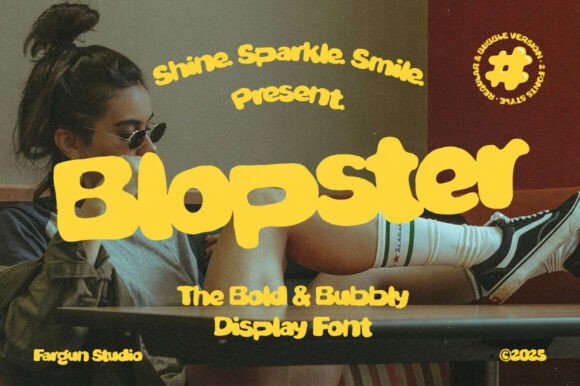
Introducing Blopster: The Ultimate Playful Display Font
Hey there, fellow creatives! Have you ever been in the middle of a design project, and suddenly, you’re stuck on finding the perfect font? I know I have! It was just the other day when I was working on a fun kids’ branding project, and I needed a font that was bold, bouncy, and full of personality. That’s when I stumbled upon Blopster, and let me tell you, it’s been a game-changer!
The Blopster Advantage
Blopster is a playful display font that comes in two bold, expressive styles: the regular chunky version and a dripping Bubble variant. This font is perfect for designers, crafters, and creative hobbyists who want to add a touch of fun and wow to their designs. With Blopster, you get:
- Two styles to choose from: a clean, quirky boldness and a gooey, glossy drip effect
- Bold, bouncy, and packed with personality – perfect for logos, packaging, kids’ projects, and eye-popping visuals
- Instant attention-grabbing with its thick curves and joyful energy!
Why You’ll Love Blopster
Here are just a few reasons why Blopster has become my go-to font:
- ✨ Double the creative power: With two styles to choose from, you can mix and match for contrast, mood shifts, or layered effects.
- ✅ Perfect for kids’ branding: Blopster is ideal for kids’ projects, slime shops, candy & toy packaging, posters, flyers, YouTube thumbnails, and merch.
- 🎉 Fun and playful: Blopster adds a touch of fun and personality to any design, making it perfect for creative projects that need a wow factor.
While Blopster is an amazing font, there are a few things to keep in mind:
- ✅ What I love:
- ✨ The two styles offer a lot of versatility.
- ✅ The font is easy to read, even at smaller sizes.
- 🎉 The drip effect in the Bubble variant is so much fun!
- 🤔 Small quirks or limitations:
- ⚠️ The font may not be suitable for body text or smaller sizes, as it’s quite bold.
- 🤔 Some of the drips in the Bubble variant can be a bit irregular, but that’s part of the charm!
The Story Behind Blopster
Blopster was designed with one goal in mind: to create a font that’s fun, playful, and full of personality. The designer wanted to create a font that would make designers and crafters smile, and I think they succeeded! The inspiration for Blopster came from a mix of childhood memories, playful art, and a dash of whimsy.
| Is Blopster suitable for body text? | No, Blopster is a display font and is best used for headlines, titles, and short text. |
And that’s it! Blopster is a fantastic font that’s sure to add a touch of fun and personality to your designs. Whether you’re working on kids’ branding, packaging, or just want to create something eye-popping, Blopster is a great choice. Give it a try and see what amazing designs you can create!